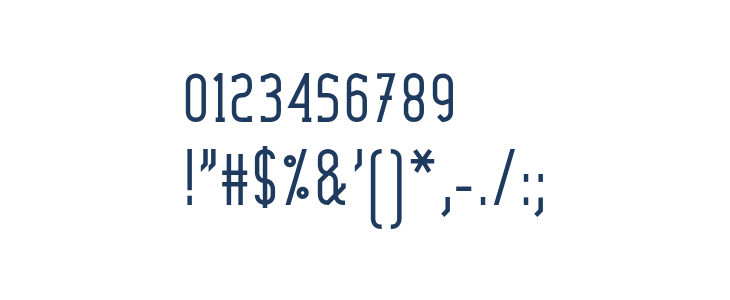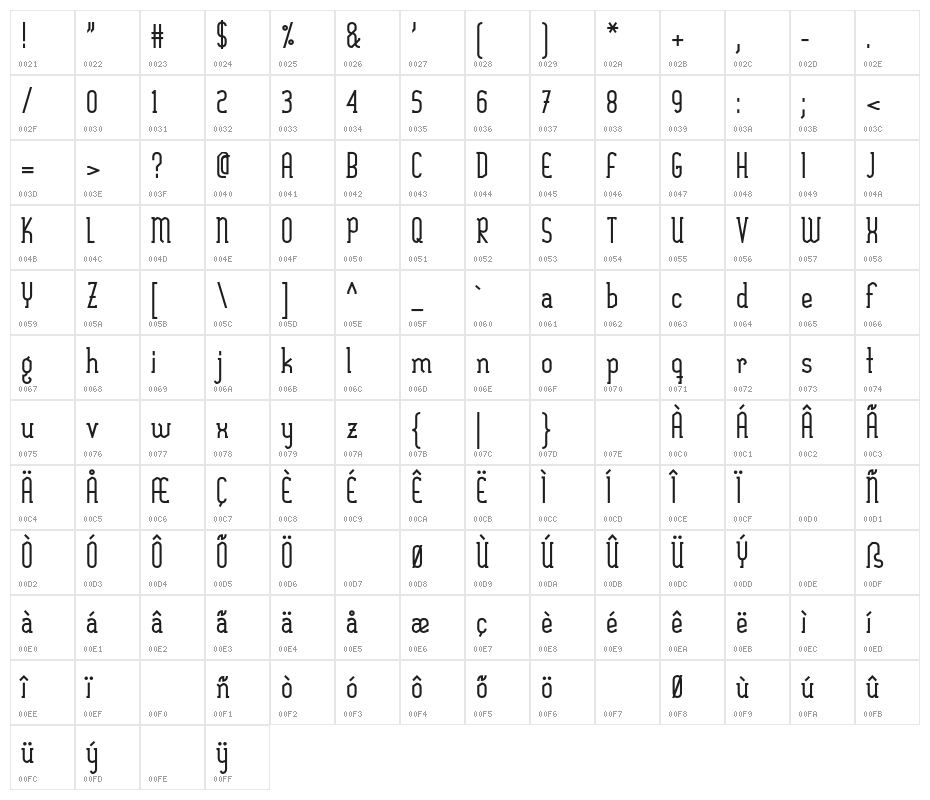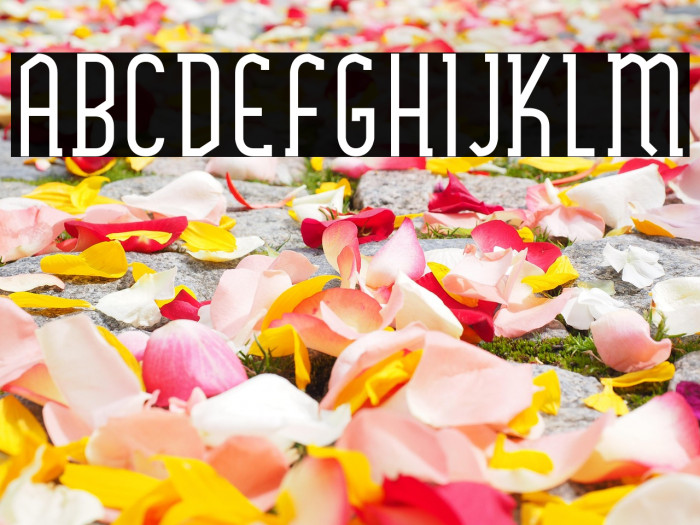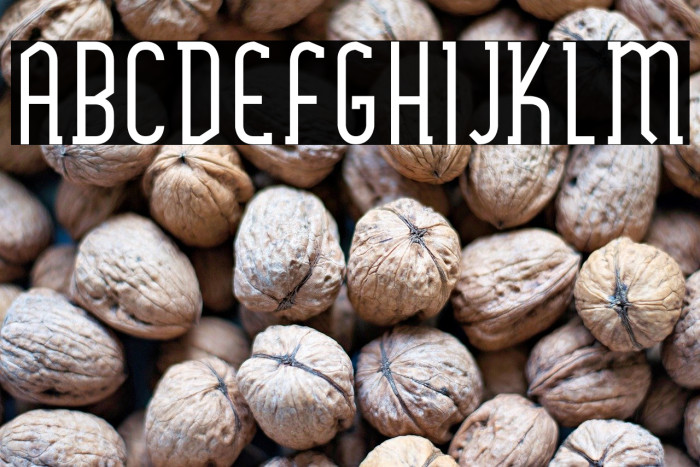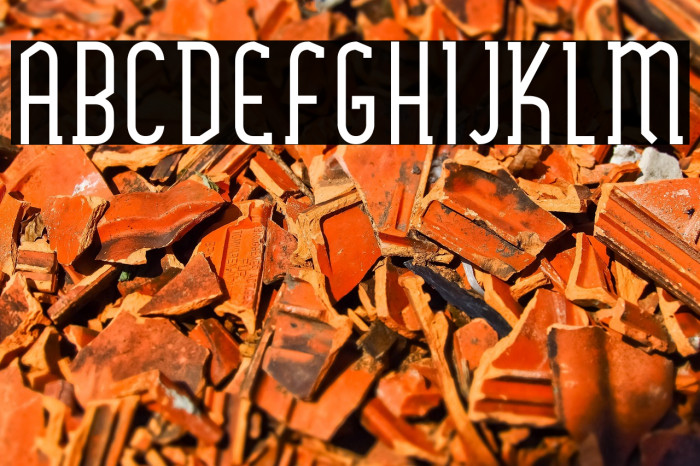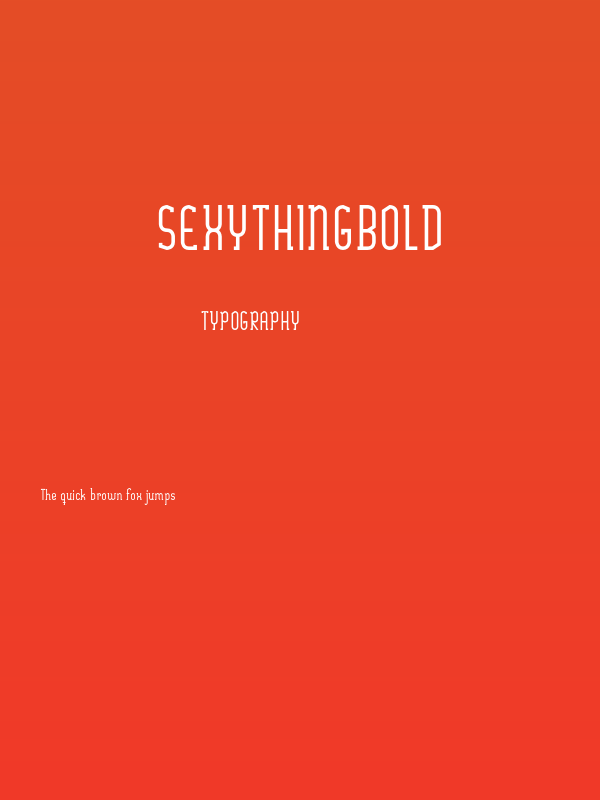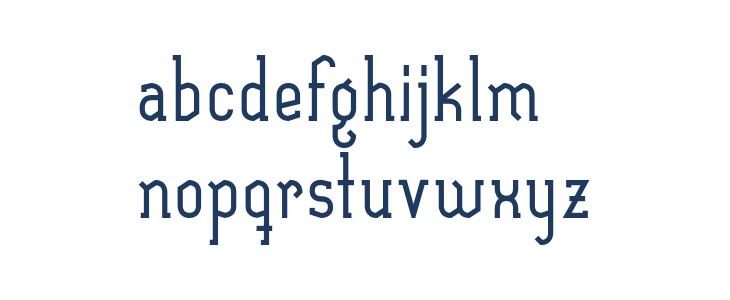
SexythingBold Font
SexythingBold Description
This font features a bold and distinctive style with elongated, narrow characters that exhibit a modern and slightly industrial aesthetic. The uppercase letters are tall and commanding, while the lowercase letters maintain a consistent height, providing a cohesive look. The numerals are clear and legible, matching the overall geometric design. Special characters are well-integrated, maintaining the font's unique personality. The font's structure is clean and sharp, making it suitable for attention-grabbing headlines or branding projects. Its boldness and unique character shapes make it stand out, offering a contemporary yet timeless appeal.